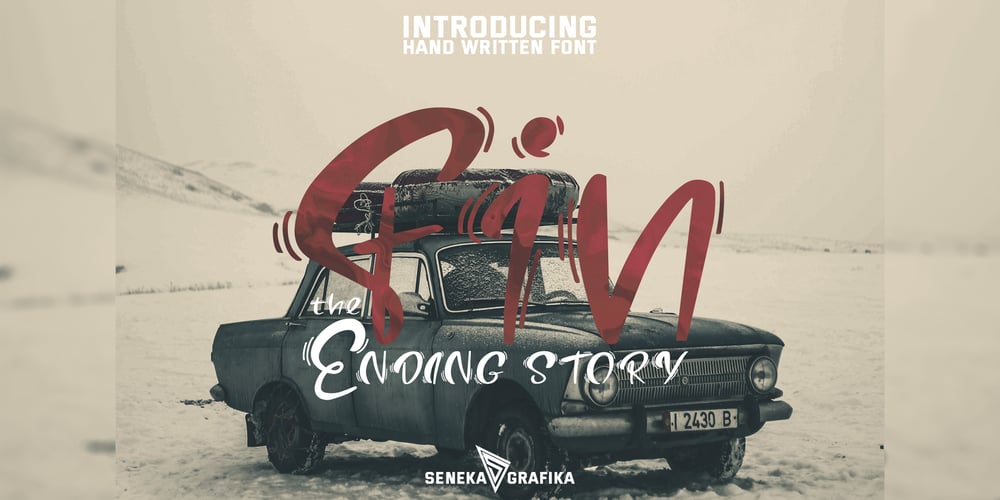
Ending Story
Ending Story font
Ending Story Font Family was designed by Muhammad Helmi and published by Senekaligrafika. Ending Story contains 1 styles and family package options. “Ending story” is experimental vintage font style that to speak instant nostalgic and retro sensation, it was inspired by the inscription on the shop/hotel/vehicle in the 90’s era.“Ending story” will help you to create special and touching typographical design for your vintage and oldschool projects.Perfect when you place them into magazines, book cover, cafe product, newspaper titles, poster, and many more.It is really universal and modern font. The owner of endless possibilities!